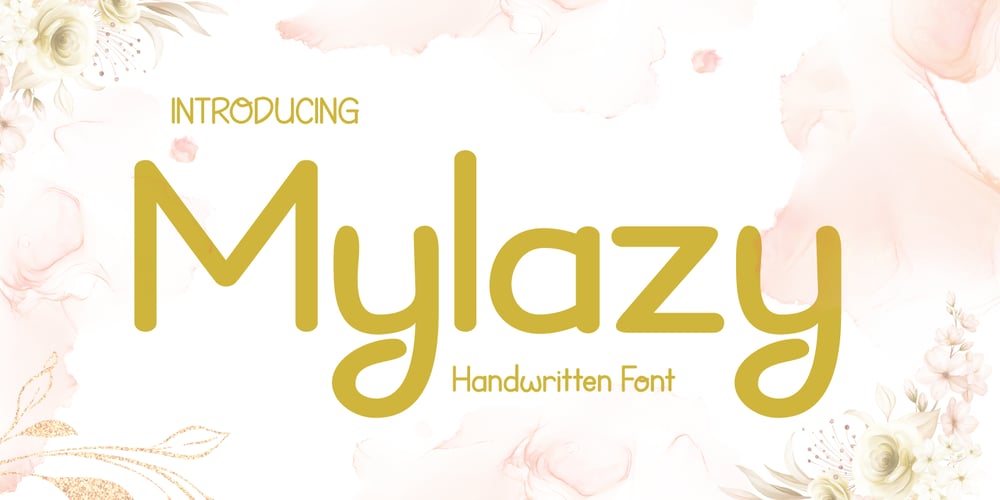
Mylazy Font Family was designed by Rozikan and published by Twinletter. Mylazy contains 1 styles and family package options. Introducing Mylazy Font – the quintessential display typeface that embodies the authentic art of handwriting! Crafted to infuse your projects with a genuine handwritten touch, Mylazy offers a creative solution for diverse design needs. Explore Mylazy now to redefine your creative endeavors!What’s Included : File font All glyphs Iso Latin 1 Alternate, Ligature Simple installations PUA Encoded Characters – Fully accessible without additional design software. Fonts include Multilingual support